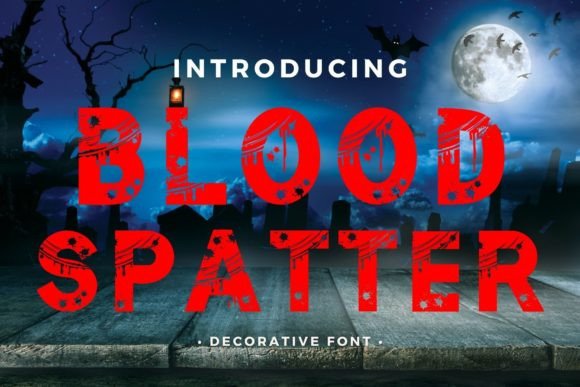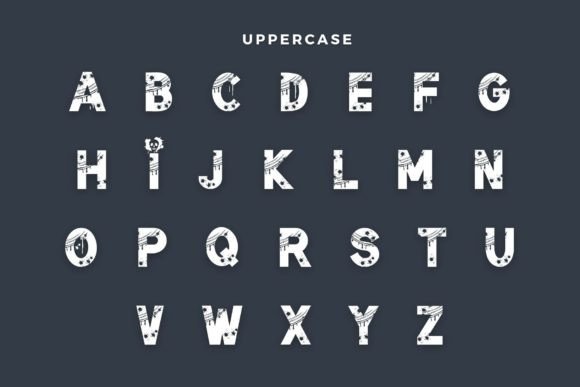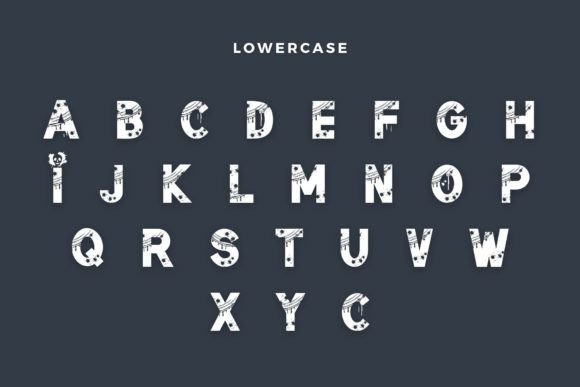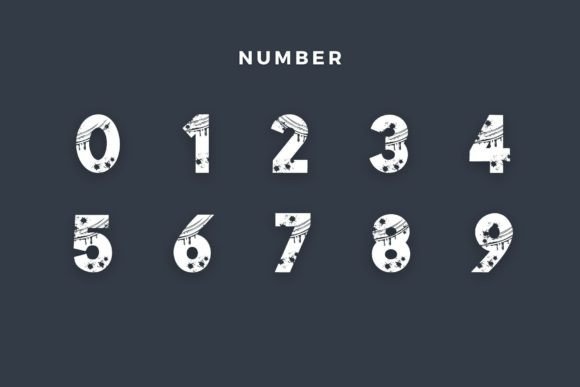
Blood Spatter Font: A Scary Decorative Font for Halloween Designs
About the Blood Spatter Font
The Blood Spatter Font offers a perfect balance of form and function for your design needs. Blood Spatter is a scary and fun decorative font. It embodies playfulness and authenticity and is the perfect choice for all your favorite Halloween projects, or even for blog posts, logos, branding, ads, invitations, greeting cards, planners, photo albums, decorations, and much more. Add it to any of your designs, and enjoy the results!
Blood Spatter excels in headlines, short text blocks for posters, and branding applications where a bold, attention-grabbing aesthetic is desired. Its playful energy works well for projects related to horror, Halloween, or other themes requiring a touch of edgy fun. However, it’s unsuitable for body text or UI elements due to low readability at smaller sizes.
For optimal pairings, consider a clean sans-serif like Open Sans for body copy to provide contrast and readability. Alternatively, a classic serif such as Garamond could add a touch of sophistication to balance the font’s playful aggression. Avoid pairing it with other highly decorative fonts, which could create visual clutter.
The font’s core personality is playful yet aggressive; it’s bold and attention-seeking, making it ideal for brands targeting a younger demographic interested in horror, pop culture, or alternative aesthetics.
Blood Spatter Font Usage Examples
Blood Spatter Font Example